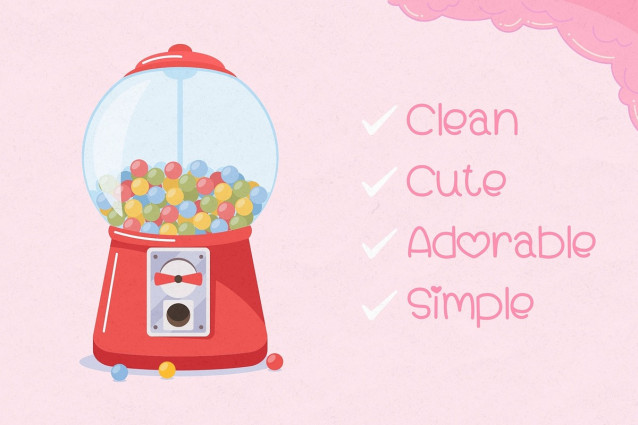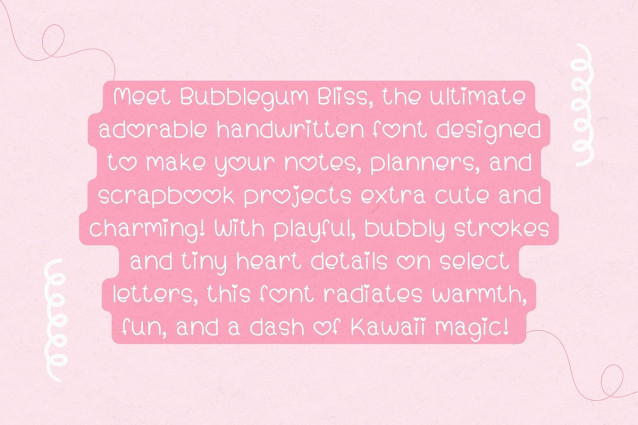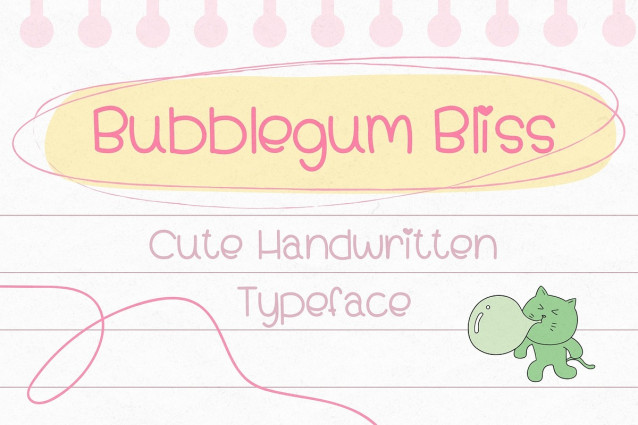
Bubblegum Bliss Font
Bubblegum Bliss, the ultimate adorable handwritten font designed to make your notes, planners, and scrapbook projects extra cute and charming! With playful, bubbly strokes and tiny heart details on select letters, this font radiates warmth, fun, and a dash of Kawaii magic!